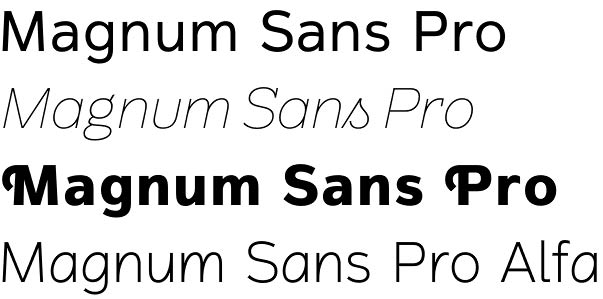
Magnum Sans Pro
Magnum Sans Pro by Michael Hagemann (FontMesa type foundry) is a comprehensive low contrast Sans Serif family offering a whole set of eleven weights with true Italic, Oblique and an alt upright set called Alfa. It has a neutral Grotesque character, strong presence, excellent legibility and plenitude of alternate forms. Its immense versatility is perfect for text, titles, magazines, signage, logotype, etc.
The contemporary definition of ‘Magnum’ refers to any product offering double the capacity. Magnum Sans Pro typeface family provides full arsenal of goodies: 11 weights with 2600 glyphs per font, two slanted and two upright versions plus a standard and pro set; stylistic alternates and swash caps expanding creativity; a lot of OpenType options.
OpenType features in the Pro set include: Alternate Fractions, Case Sensitive Forms, Denominators, Numerators, Discretionary Ligatures, Standard Ligatures, Old-style Figures, Tabular Figures, Proportional Figures, Ordinals, Scientific Inferiors, Superscript, Subscript, Stylistic Alternates, Swash Caps, Arrows and Enclosed Alphanumerics. This Pro set includes additional language support for Vietnamese, Pin Yin and Greek.
Michael Hagemann is US type designer and photographer, founder of the FontMesa type foundry. FontMesa are searching for old typefaces both classic (Tuscan and French) and of the Old West, reviving them for life in the digital age. They are producing high-end typefaces drawn and kerned by hand and instead of created by automatic scanning methods.